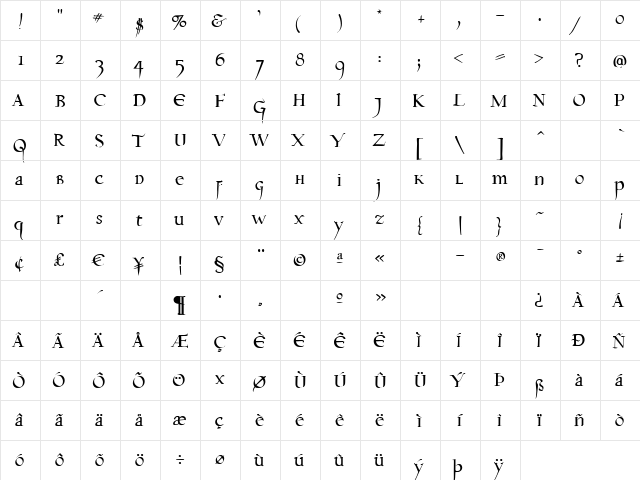
P22 Dwiggins Uncial Regular
| Foundry | P22 type foundry |
| Designer | Richard Kegler |
Design Context for P22 Dwiggins Uncial Typeface
P22 Dwiggins Uncial is a composed and adaptable typeface that performs quietly and consistently across a wide range of design contexts.